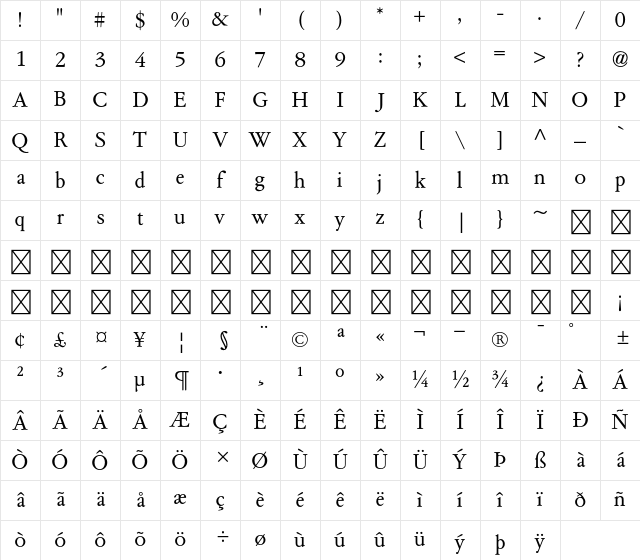
A P-OTF KizaKinryou Std M Free Font
A P-OTF KizaKinryou Std M
Style: M
Designer: Yoshikazu Imada
Design Context for A P-OTF KizaKinryou Std
A P-OTF KizaKinryou Std is a composed and adaptable typeface that performs quietly and consistently across a wide range of design contexts.
Pro Tip: Use A P-OTF KizaKinryou Std in both headline and body roles to test its range before committing to a single application.